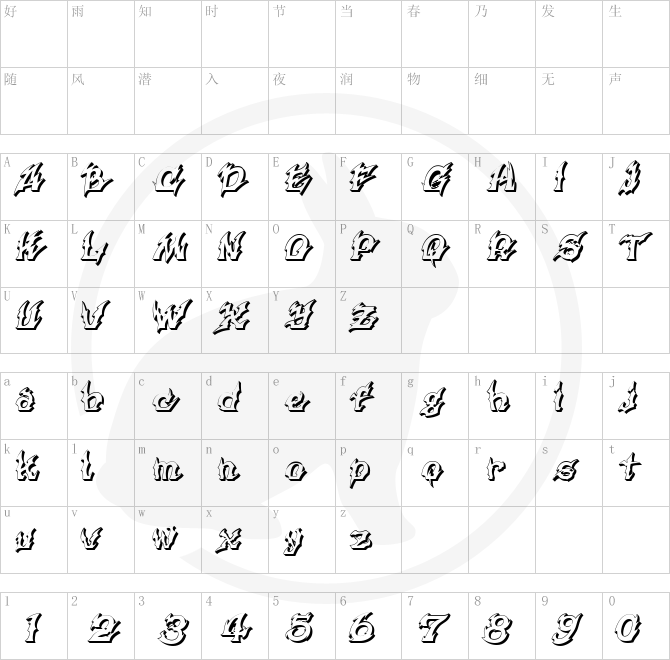
- Font Name:Xanax
Xanax-copy-1-.ttf is a very beautiful artistic font, Xanax-copy-1-.ttf is widely used in the design and printing of various books and pictures,Xanax-copy-1-.ttf has a strong visual impact,Xanax-copy-1-.ttf is a commonly used font in newspapers, magazines and books, and is used in posters, e-commerce Poster design, store design, logo design, font design and other fields.Xanax-copy-1-.